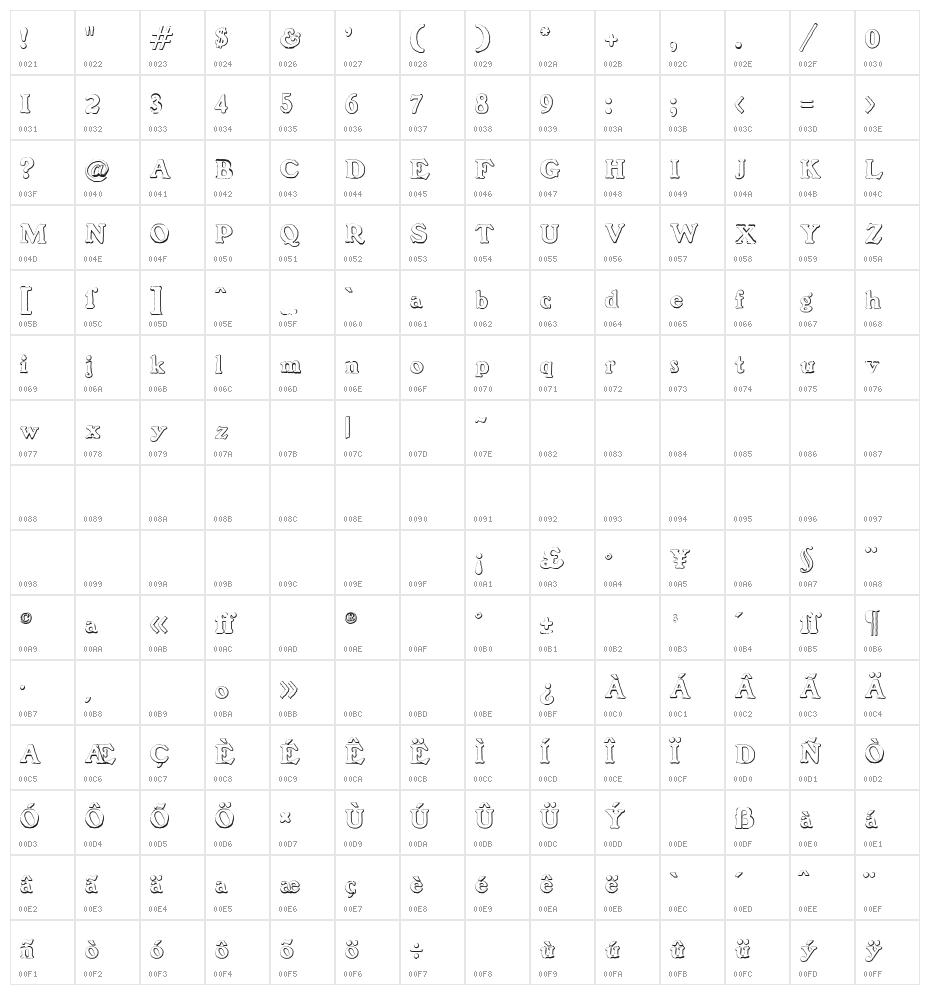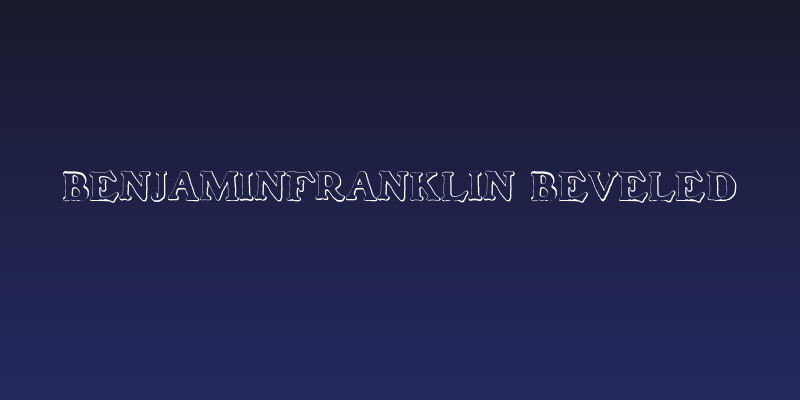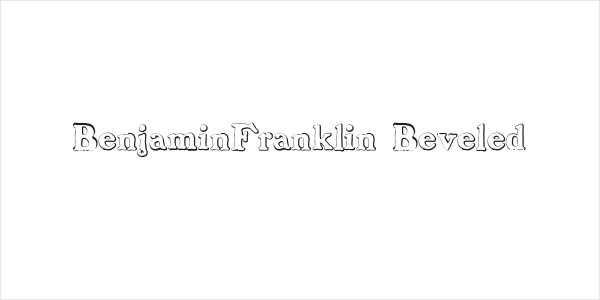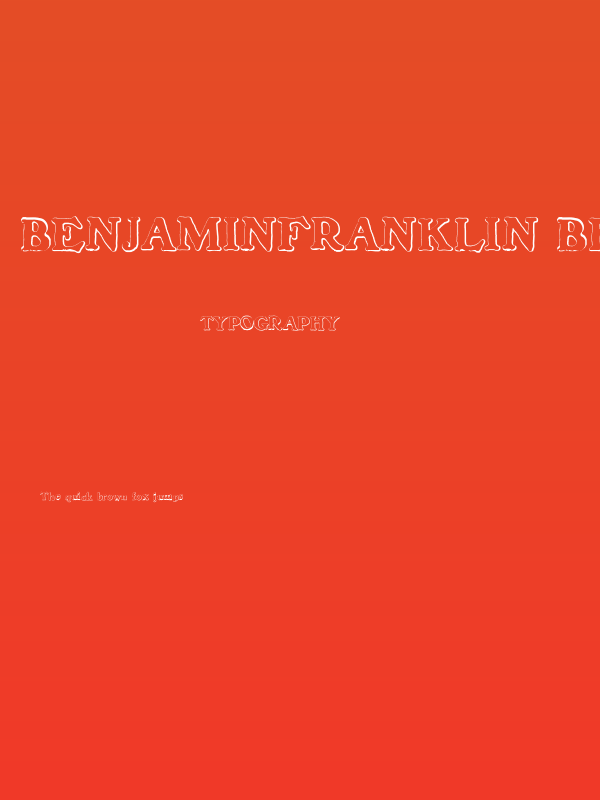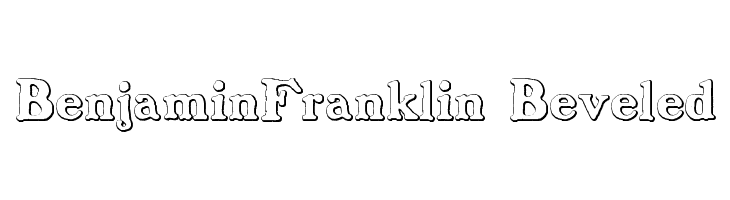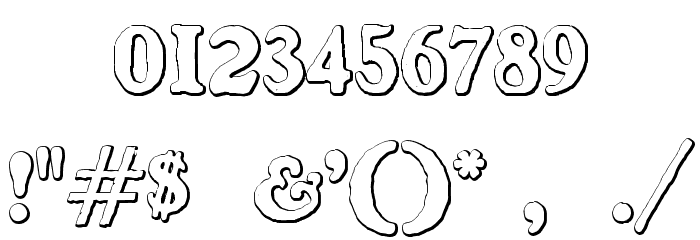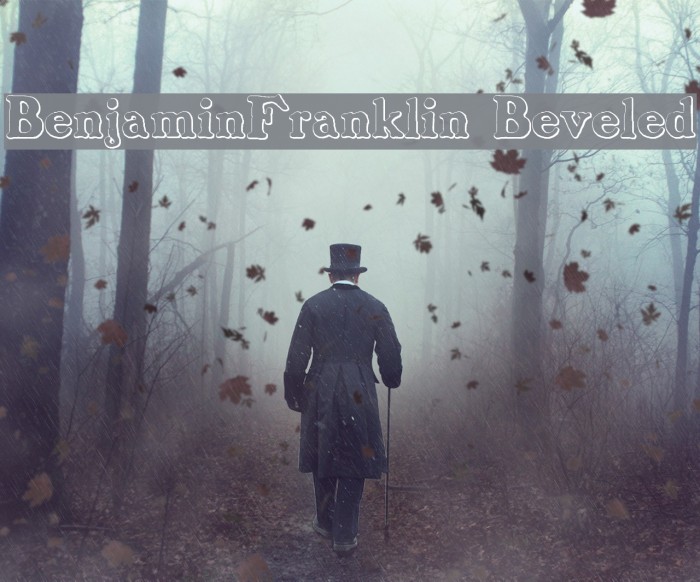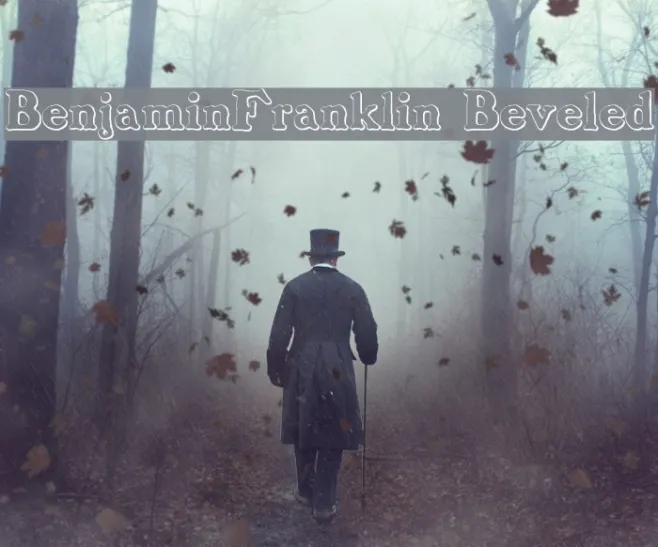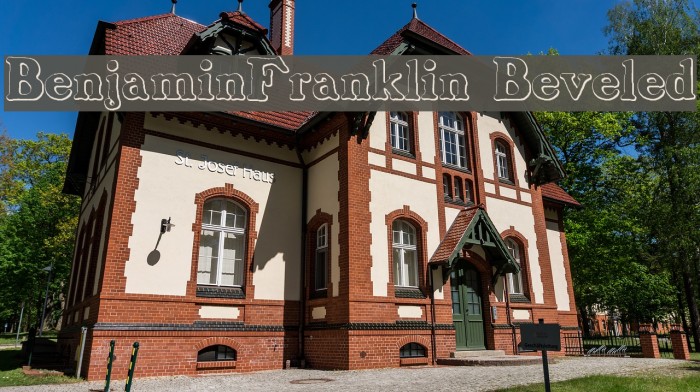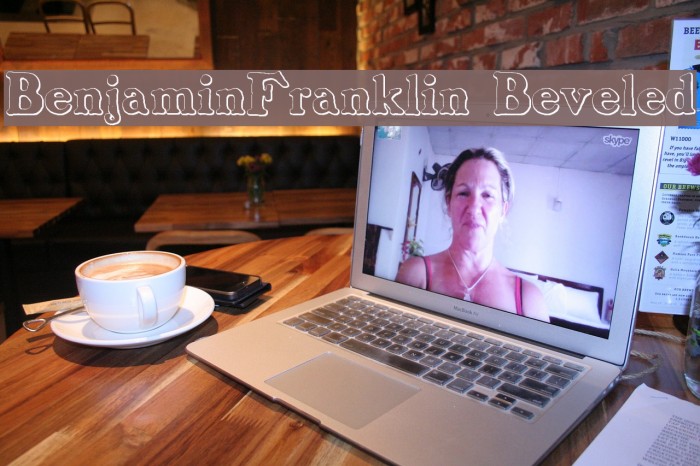
BenjaminFranklin Beveled Font
BenjaminFranklin Beveled Description
This font features a distinctive beveled design that gives it a three-dimensional appearance. The characters have a classic serif structure with bold, prominent strokes and subtle shadowing that enhances the depth effect. The uppercase letters are strong and commanding, while the lowercase letters maintain a consistent style with slightly softer edges. Numbers and special characters are designed to match the overall aesthetic, making them suitable for a variety of uses. The font's unique style is both eye-catching and versatile, ideal for projects that require a touch of elegance and sophistication.
| Overall Style | Classic, Decorative |
| Proposed Projects | Ideal for branding, headlines, posters, and invitations where a classic yet bold statement is needed. |